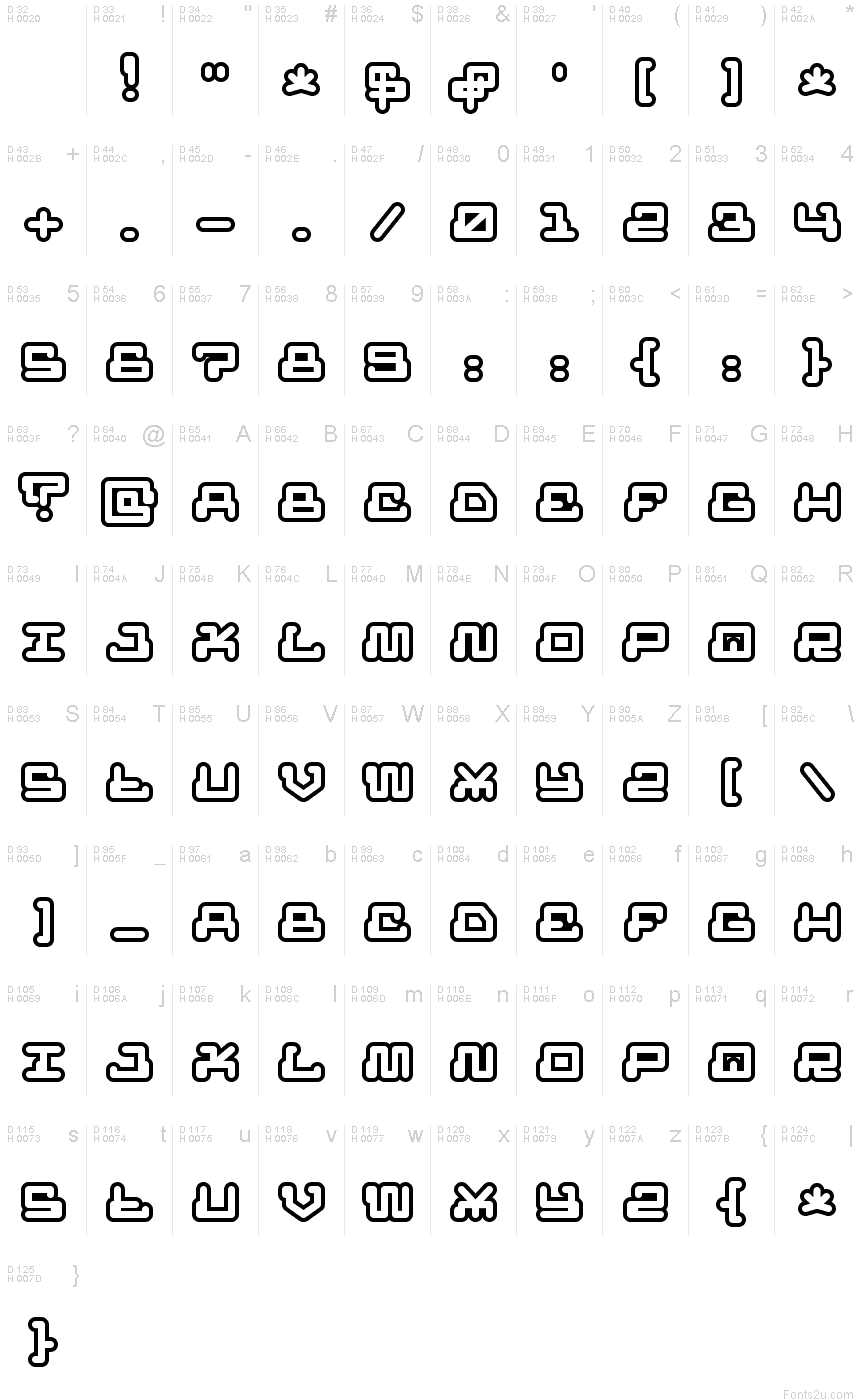
MR Fuglesang Outline is a free outlined techno caps font with a chunky, space-age bounce. The letters are built from rounded block forms and thick outer contours, giving the font a playful digital feel that lands somewhere between arcade signage and retro sci-fi lettering.
It fits poster titles, game logos, club flyers, YouTube cover art, and event branding where short words need a soft-edged futuristic push. As a free font, it also works well for title cards and monograms, because the broad shapes and open inline treatment keep the caps looking bold without feeling heavy.